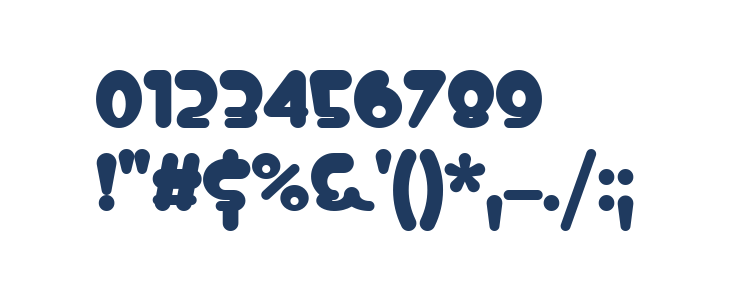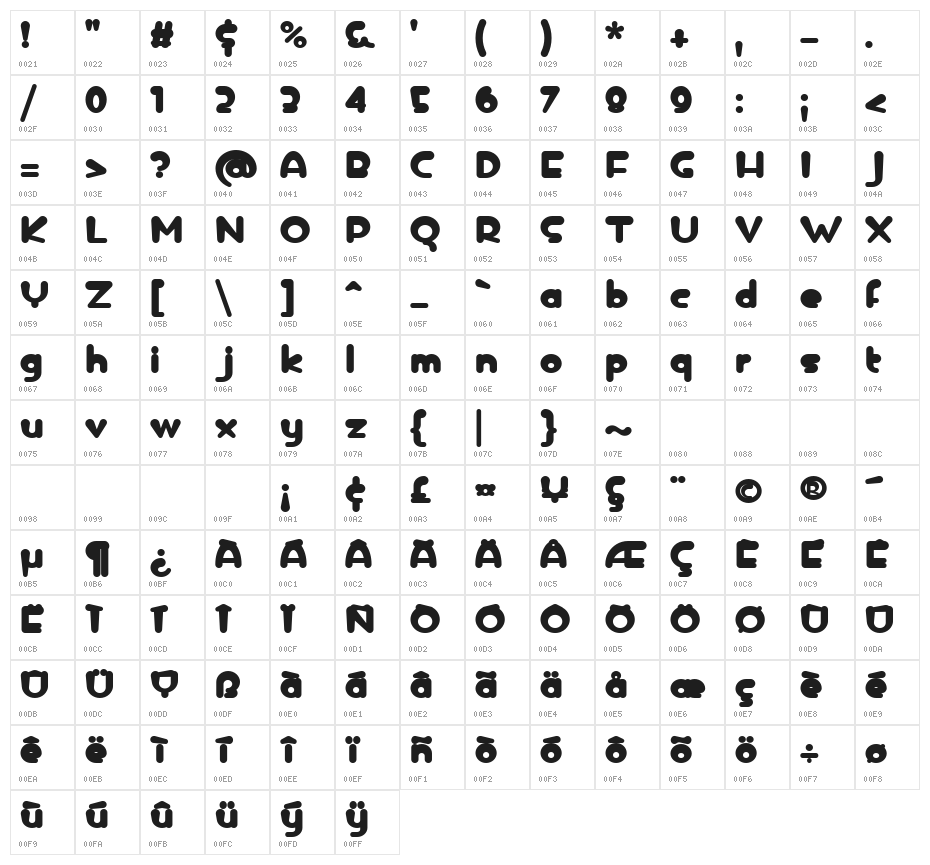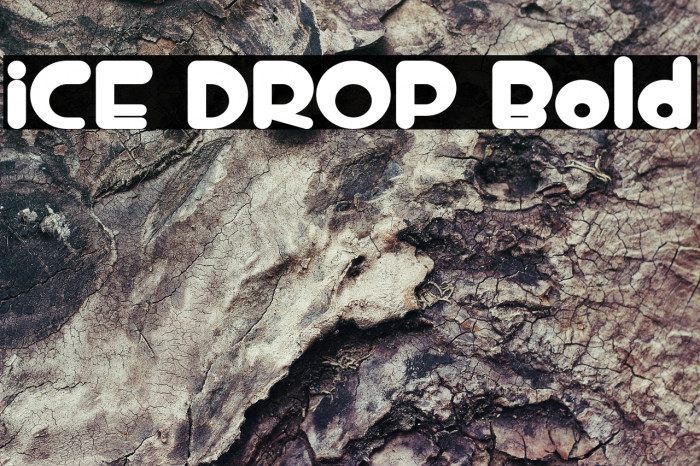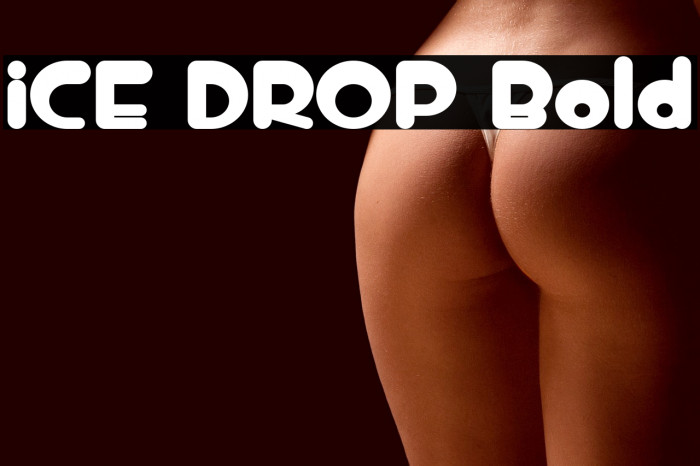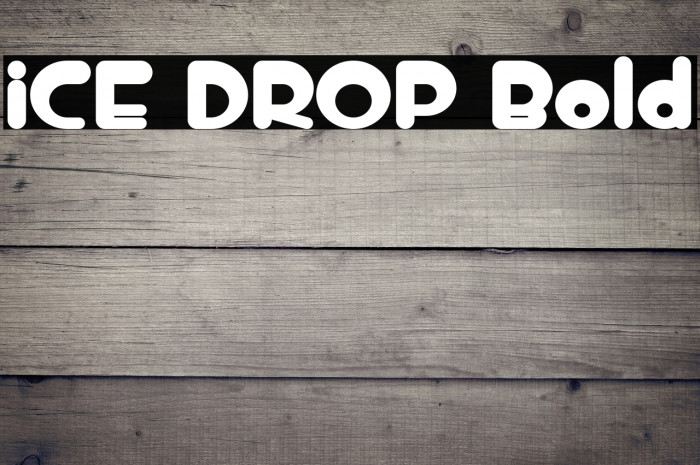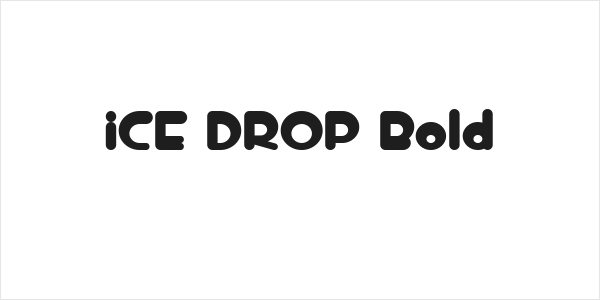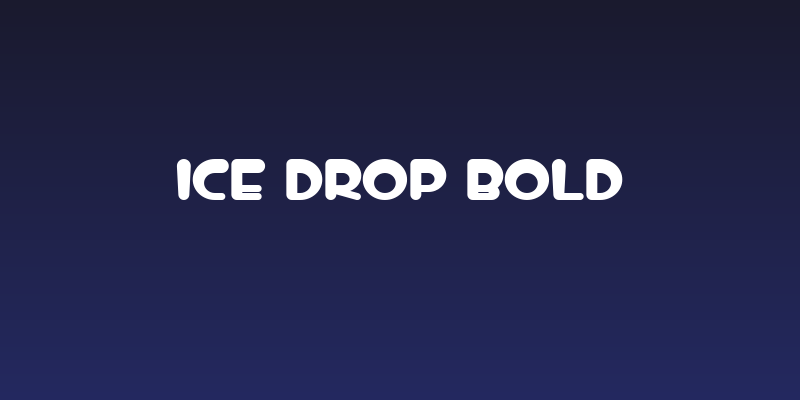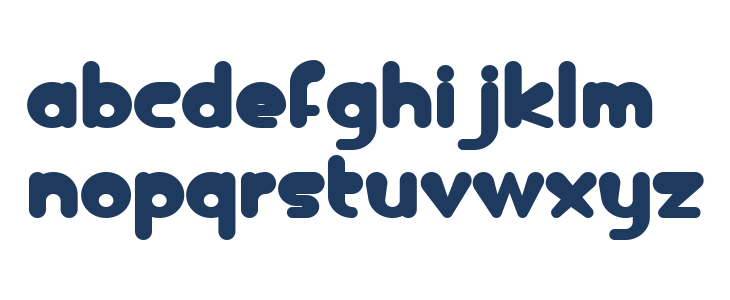
iCE DROP Bold Font
iCE DROP Bold Description
This font features a bold and rounded style, characterized by its thick, uniform strokes and smooth curves. The letters are designed with a playful and friendly appearance, making it suitable for informal and creative projects. The uppercase and lowercase letters maintain a consistent weight, providing a cohesive look across the alphabet. The numerals and special characters are equally bold, ensuring readability and visual impact. The overall design is modern and approachable, with a touch of whimsy that adds personality to any text.